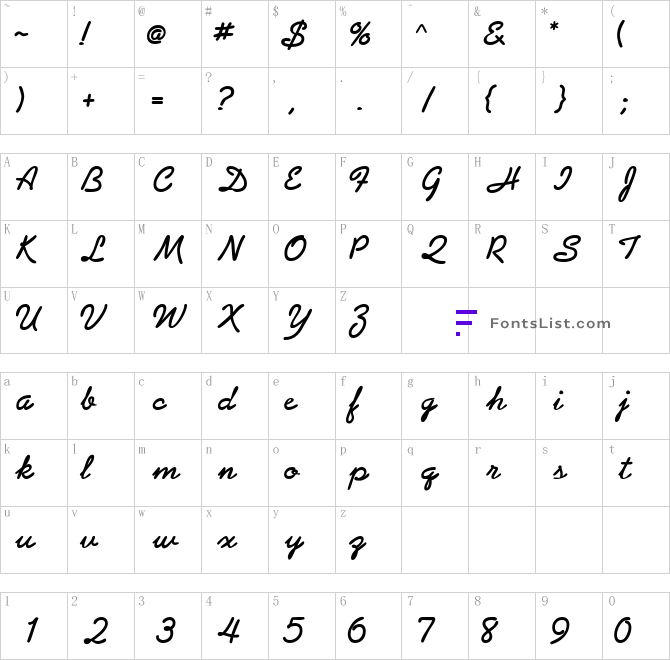
- Font Name:Abbruze
Abbruze-Bold.ttf is a very beautiful artistic font, Abbruze-Bold.ttf is widely used in the design and printing of various books and pictures,Abbruze-Bold.ttf has a strong visual impact,Abbruze-Bold.ttf is a commonly used font in newspapers, magazines and books, and is used in posters, e-commerce Poster design, store design, logo design, font design and other fields.Abbruze-Bold.